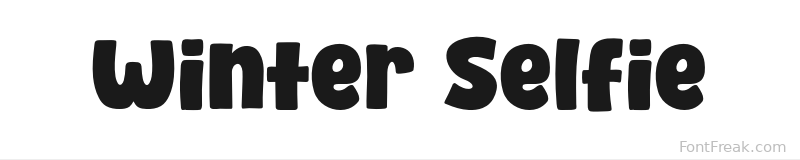
Winter Selfie
About Winter Selfie
Winter Selfie is a delightful display font designed by Syaf Rizal, characterized by its playful and whimsical style. This font falls into the decorative category, making it a fantastic choice for creative projects that aim to capture attention. The visual characteristics of Winter Selfie include rounded, bold letterforms with a chunky stroke weight that exudes a sense of warmth and friendliness. The slight variations in stroke contrast provide an inviting quality, while the generous spacing between characters enhances readability, making it suitable for various applications.
This font is ideal for a range of creative uses, particularly in the realms of seasonal marketing and festive events. It's perfect for crafting eye-catching holiday cards, cheerful winter-themed posters, and engaging social media graphics that invite engagement. Additionally, Winter Selfie works wonderfully for children’s book covers, fun event flyers, and unique merchandise branding. Its charm and character make it an appealing choice for graphic designers, small business owners, and content creators looking to infuse their projects with a touch of whimsy.
The target audience for Winter Selfie includes those who appreciate a fun and vibrant aesthetic, especially in the context of winter celebrations and casual branding. As a freeware font, it allows designers to incorporate a high-quality typeface without the burden of licensing fees, making it accessible for everyone.
What sets the Winter Selfie font apart is its ability to evoke feelings of joy and nostalgia, making it an excellent choice for any project that seeks to connect with audiences in a light-hearted manner. With the Winter Selfie font free download, you can easily add a touch of winter magic to your designs, ensuring they stand out in a crowded marketplace.